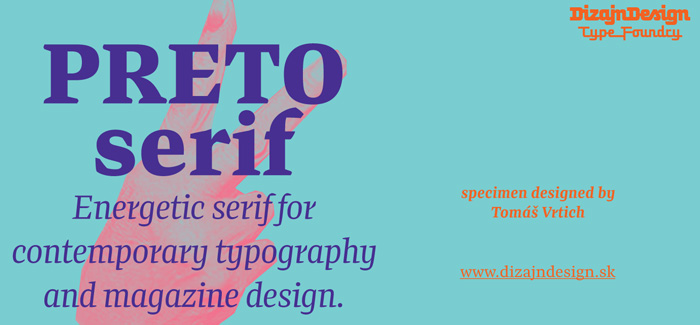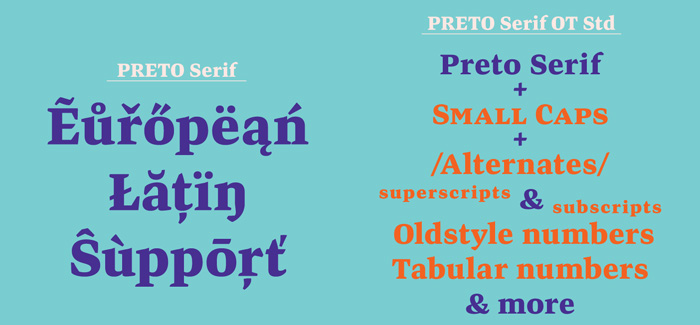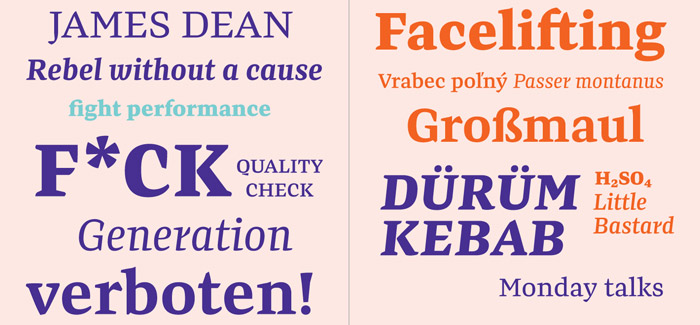
Preto Serif font
Preto Serif font is a part of an extensive type family, which explores the function of serifs on readability and legibility. Preto consist of three subfamilies: Sans, Semi and Serif. Preto is designed for multilingual typesetting. All of the subfamilies have equal gray value but different texture which can be use to differentiate languages. Preto sub-families have two text weights and two bold styles (Regular -> Bold, Medium -> Black). Every weight has a companion Italic style as well.
The serif version has been designed to work best at small point sizes (around 8, 9 points).
You will not achieve calm, boring or invisible look of your text with Preto Serif. Its long, spiky and sharp serifs contribute to give the typeface a distinct and energetic character. It is very suitable for magazines, corporate identity, brochures or other print materials where a typeface for continuous reading is required.
The ligatures in Preto Serif are very special. You can set them in different tracking values and spacing will increase/decrease consistently in the ligatures as well.
Alternative characters in the font files allow you to change the feeling of the text from typical to more special (J, Q, g , &). Each font contains a full set of small caps and many alternative characters for complex typesetting.